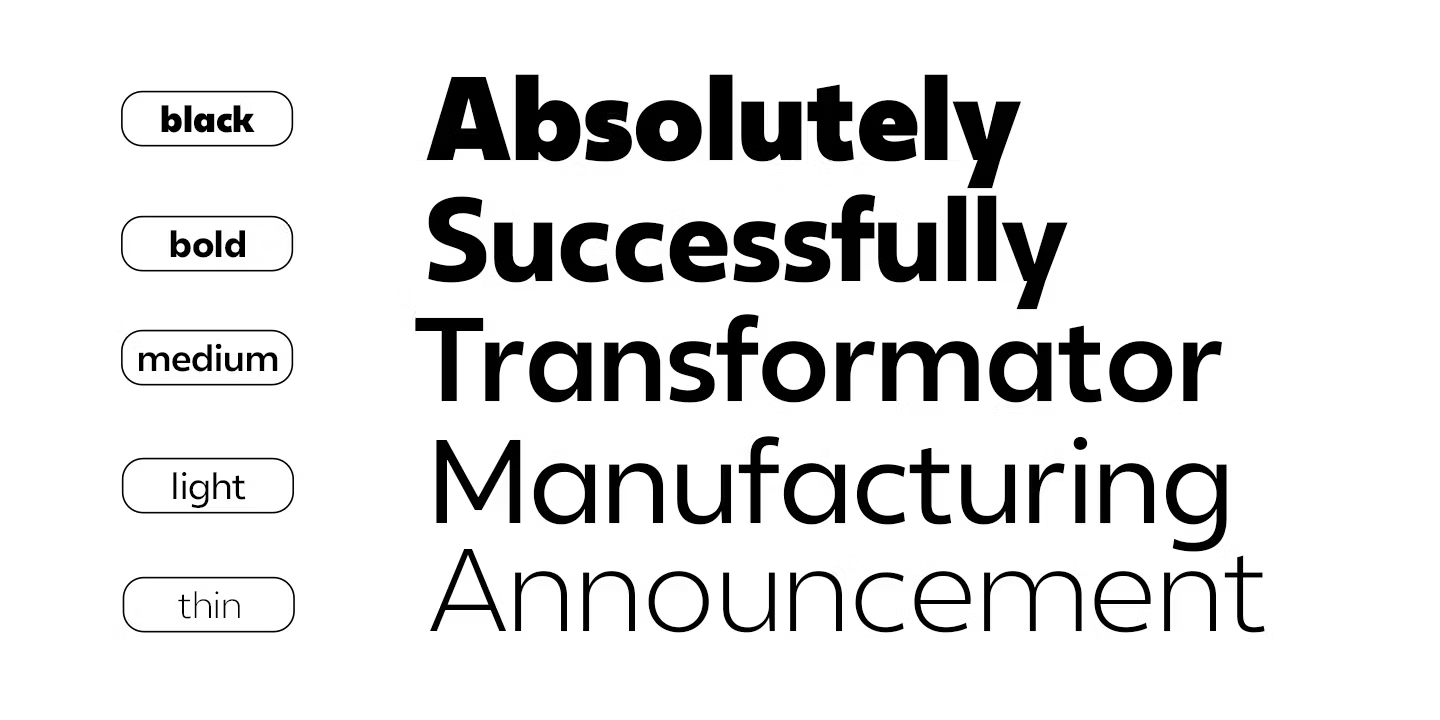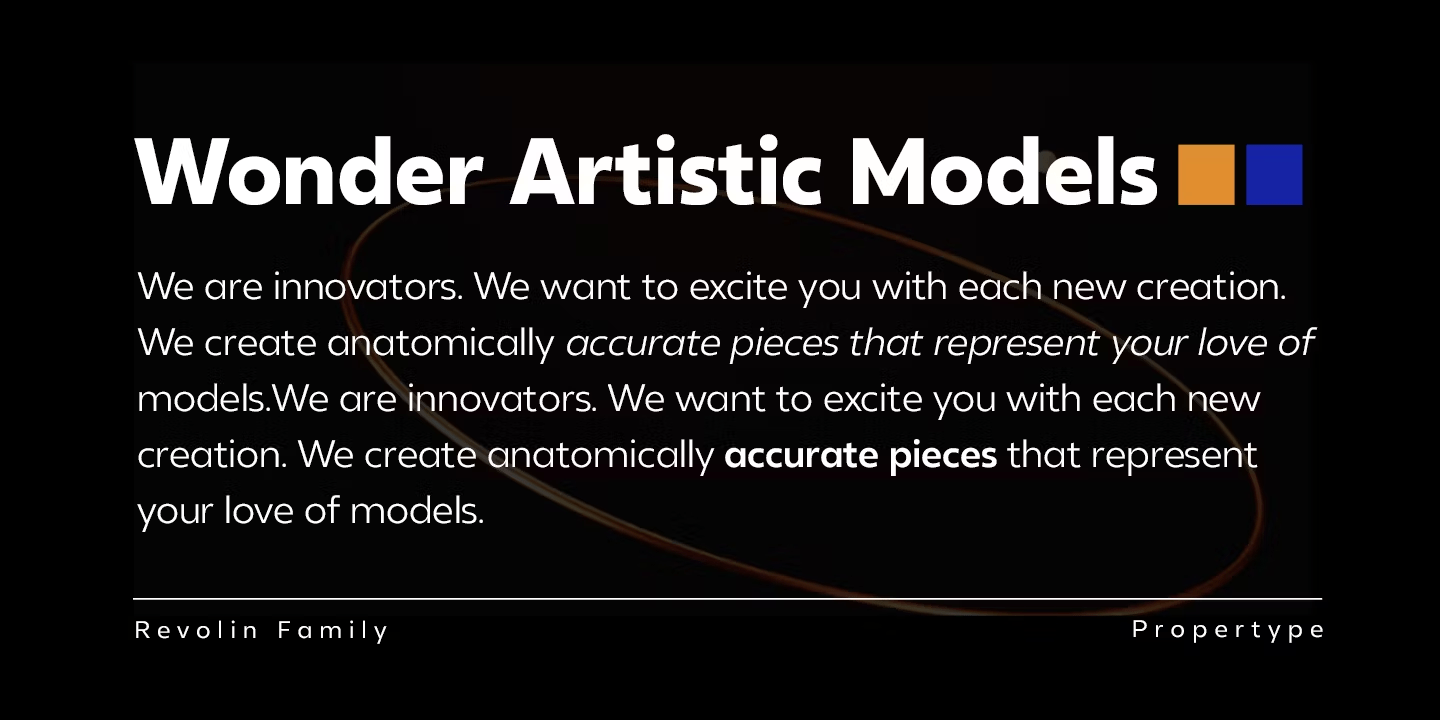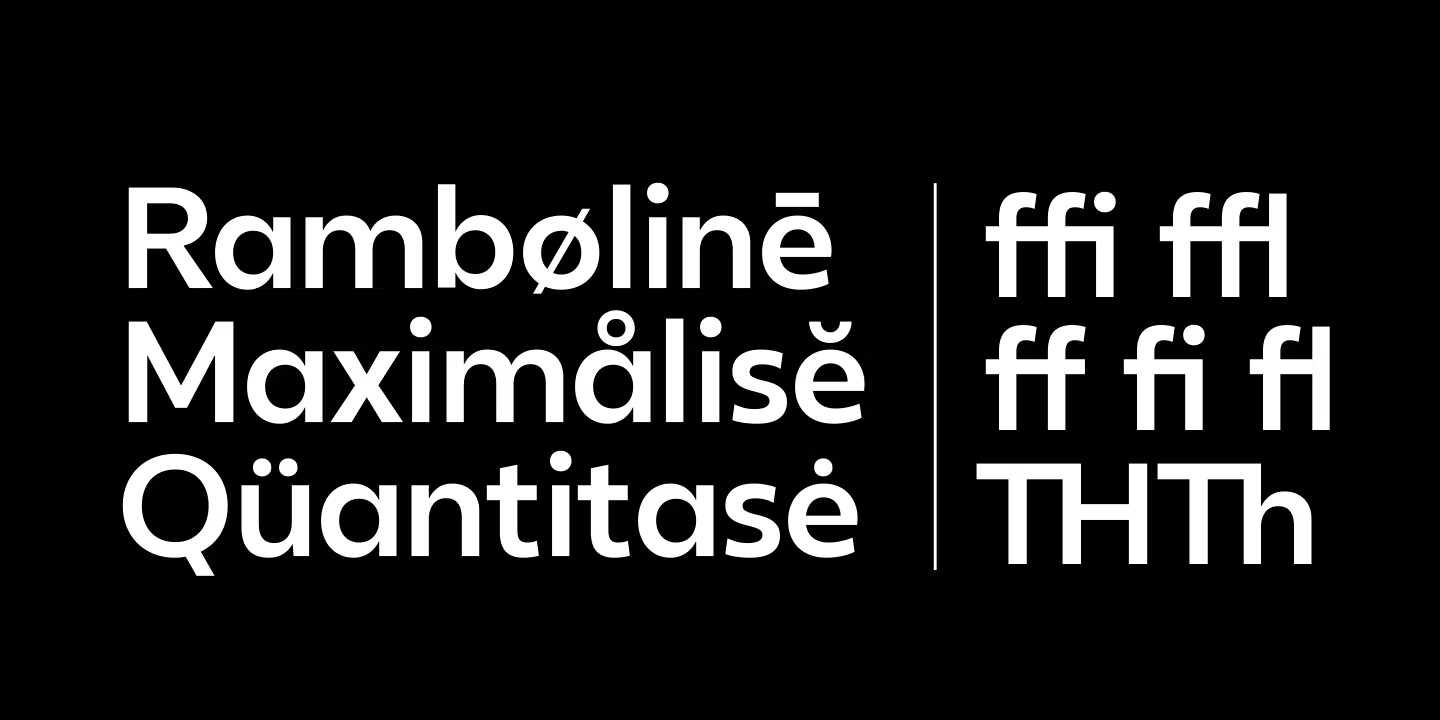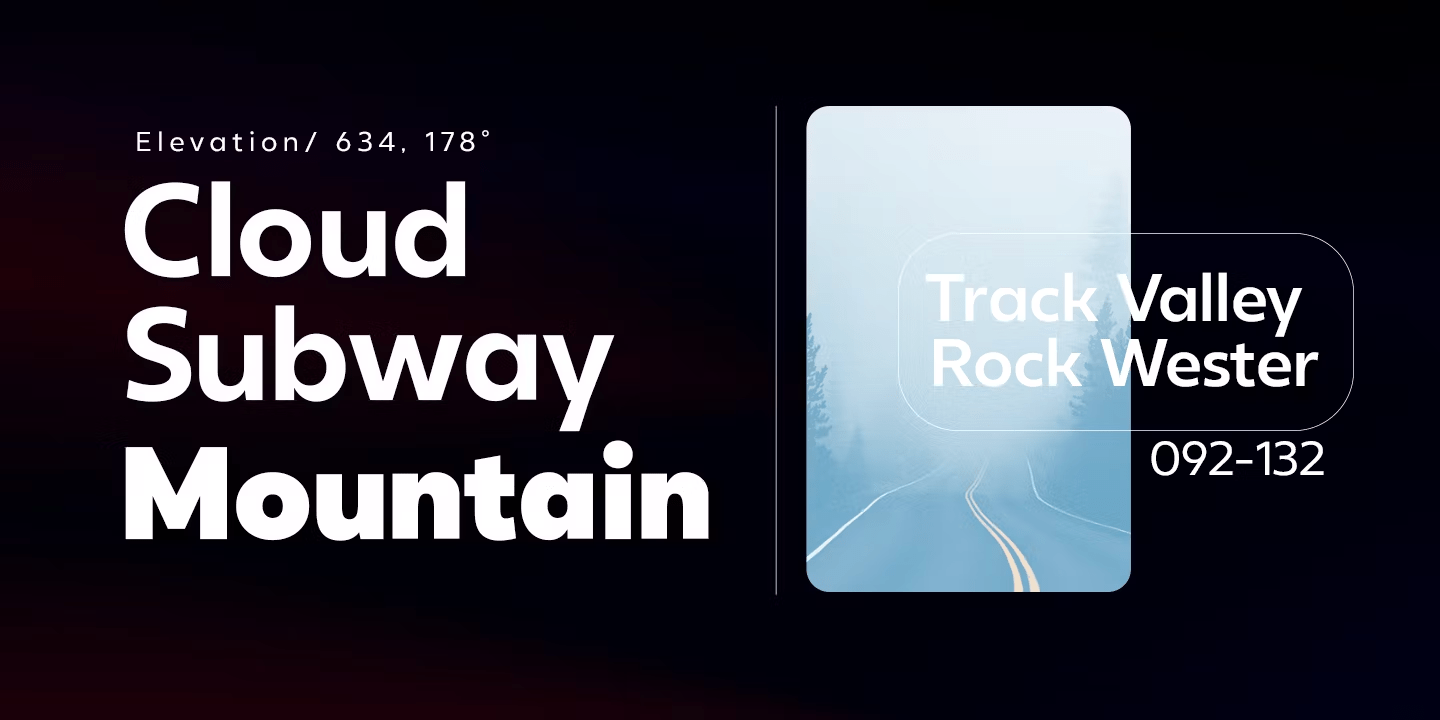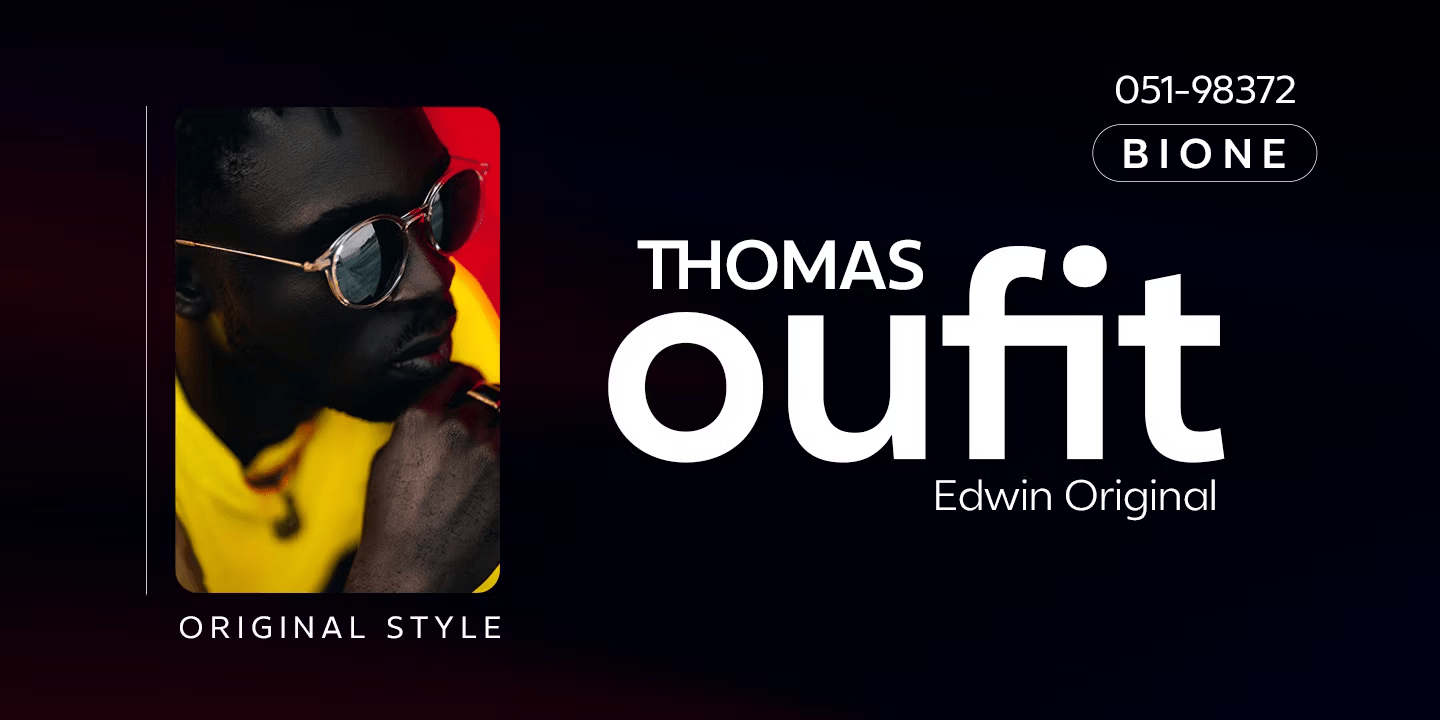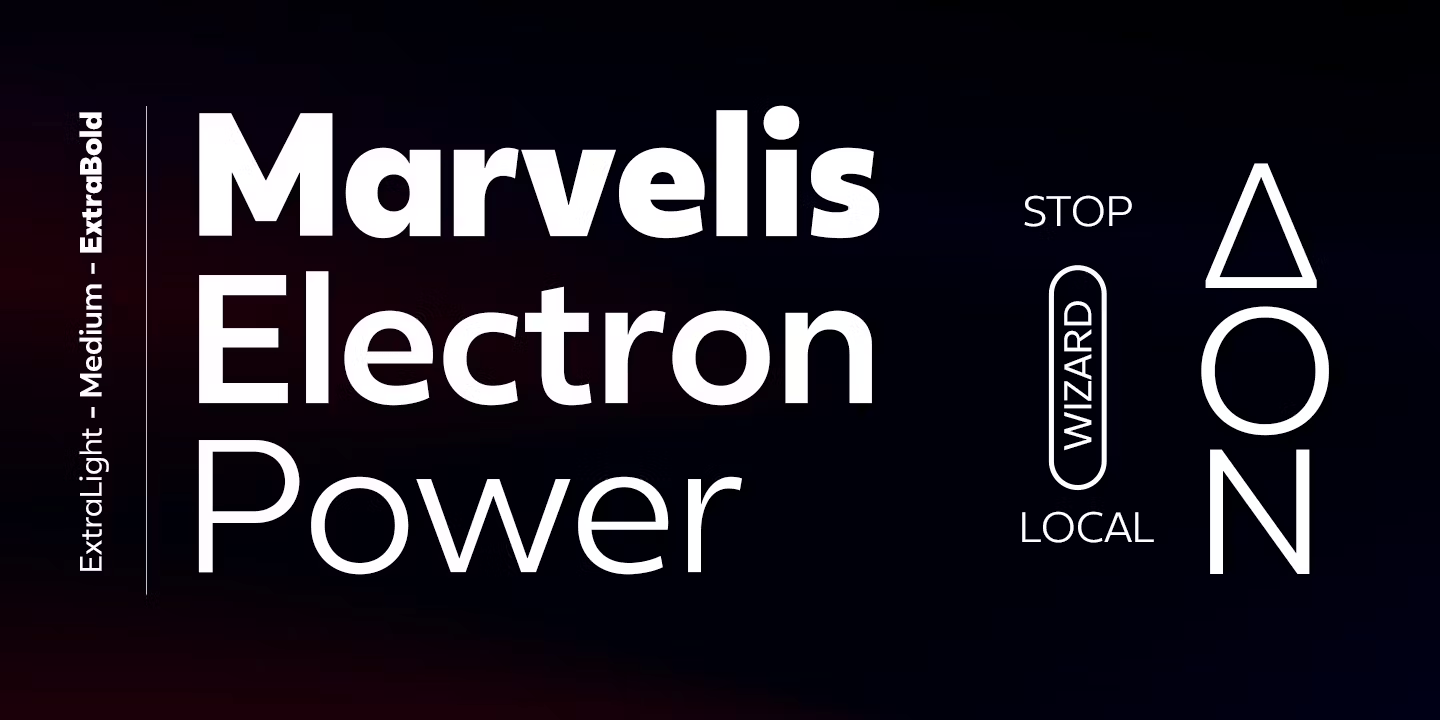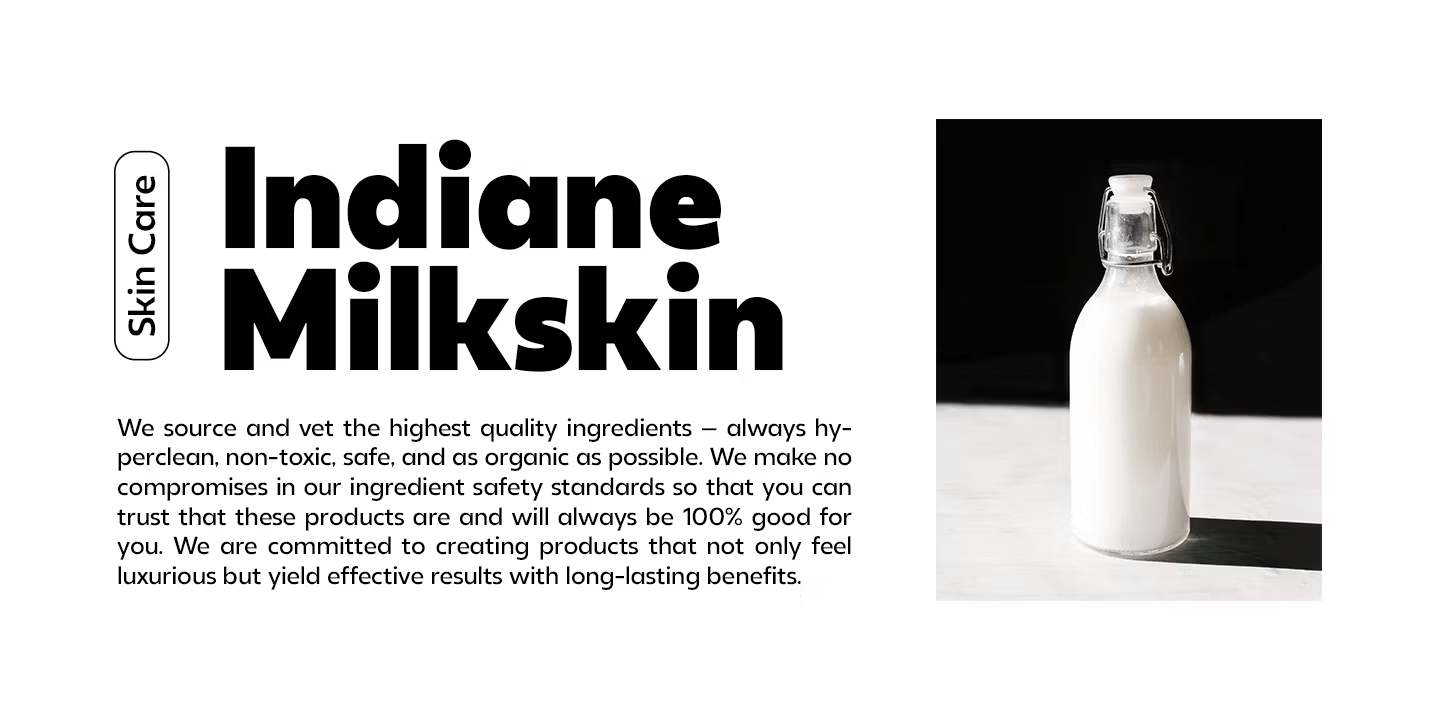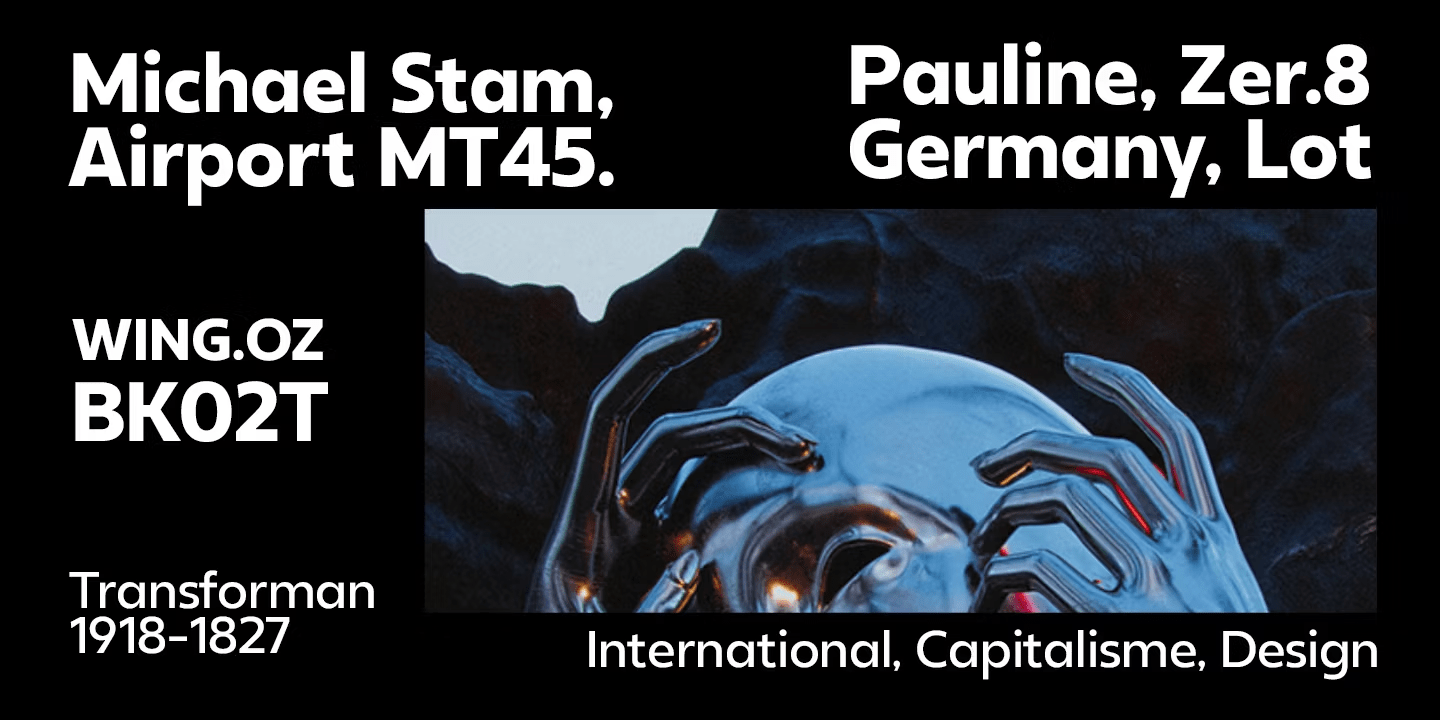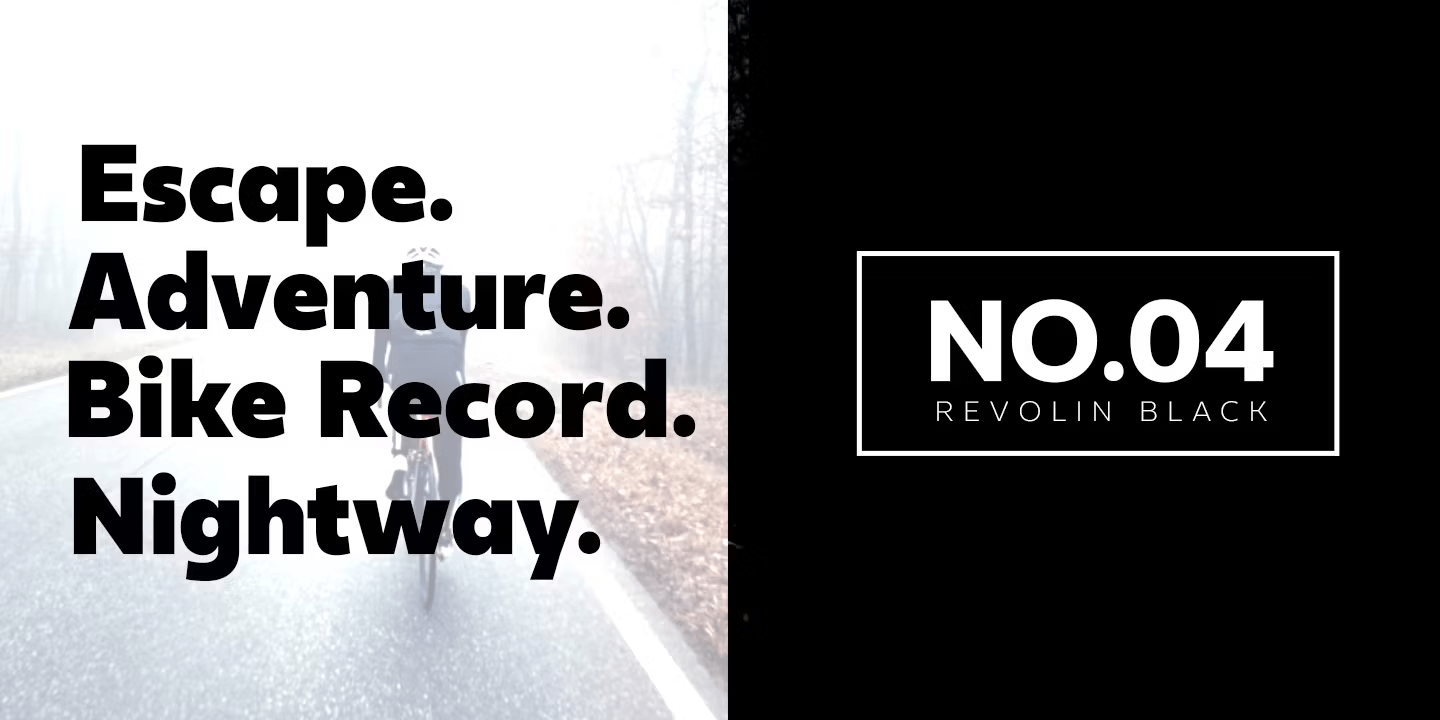
Revolin
Revolin is a contemporary geometric sans family in 18 styles.
Strong geometric characters combine with a modern, sharp cut, resulting in a strong font with a distinctive personality. The bold concept of repeating basic shapes creates a clear rhythm and makes this a highly readable set suitable for everyday use.
Revolin Comes in 9 weights, each designed to fill the space without screaming, appearing smooth and confident. The tall X height and strong capital letters maintain clear visibility across all weights and have been optically corrected for better readability. The matching slant at 12º helps provide complete expression.
• Uppercase Characters
• Lowercase Characters
• Numbers and Ligatures
• Multilingual Support
This Revolin Family features this fresh reworking of a classic geometric style offering a wide range of potential applications: suitable for logos, branding, signage, interfaces and design.